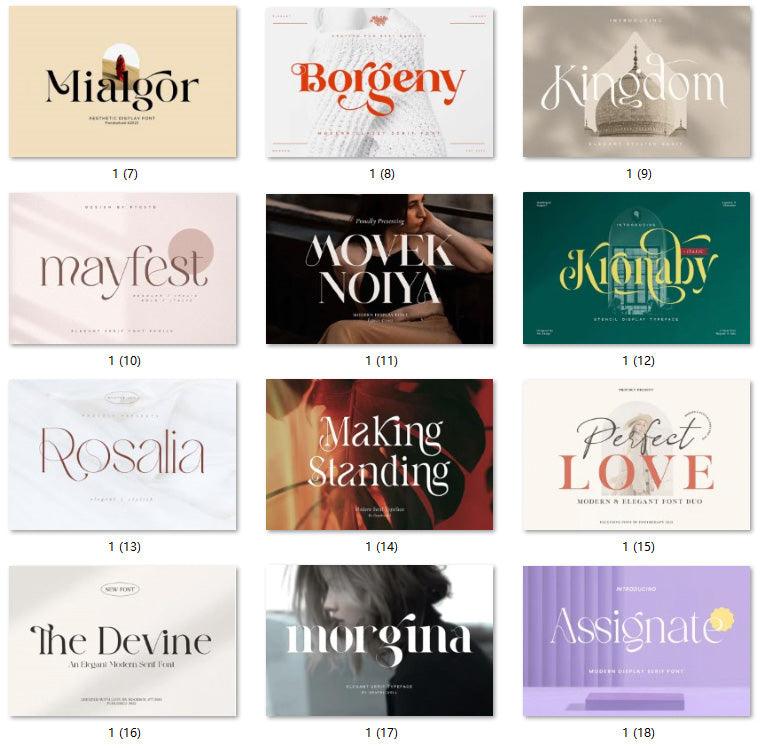
Font Name: 24-Piece Simple Aesthetic Trendy English Font Ensemble
Font Style: Minimalist / Aesthetically Pleasing / Trendy & Fashion-Forward
Application Scenarios: Fashion brand logo crafting, glossy magazine layouts, beauty campaign visuals, artistic video headings, upscale stationery designs
Sleek Aesthetic Appeal: Showcases minimalist structures paired with aesthetic nuances, delivering clean lines and stylish typography that elevate visual elegance.
Diverse Trend-Driven Styles: 24 fonts blend simplicity with contemporary elements, each carrying unique details to cater to varied creative visions.
Broad Functional Adaptability: Ideal for fashion branding, editorial designs, digital content, and creative ventures, enhancing the refined charm of any design project.